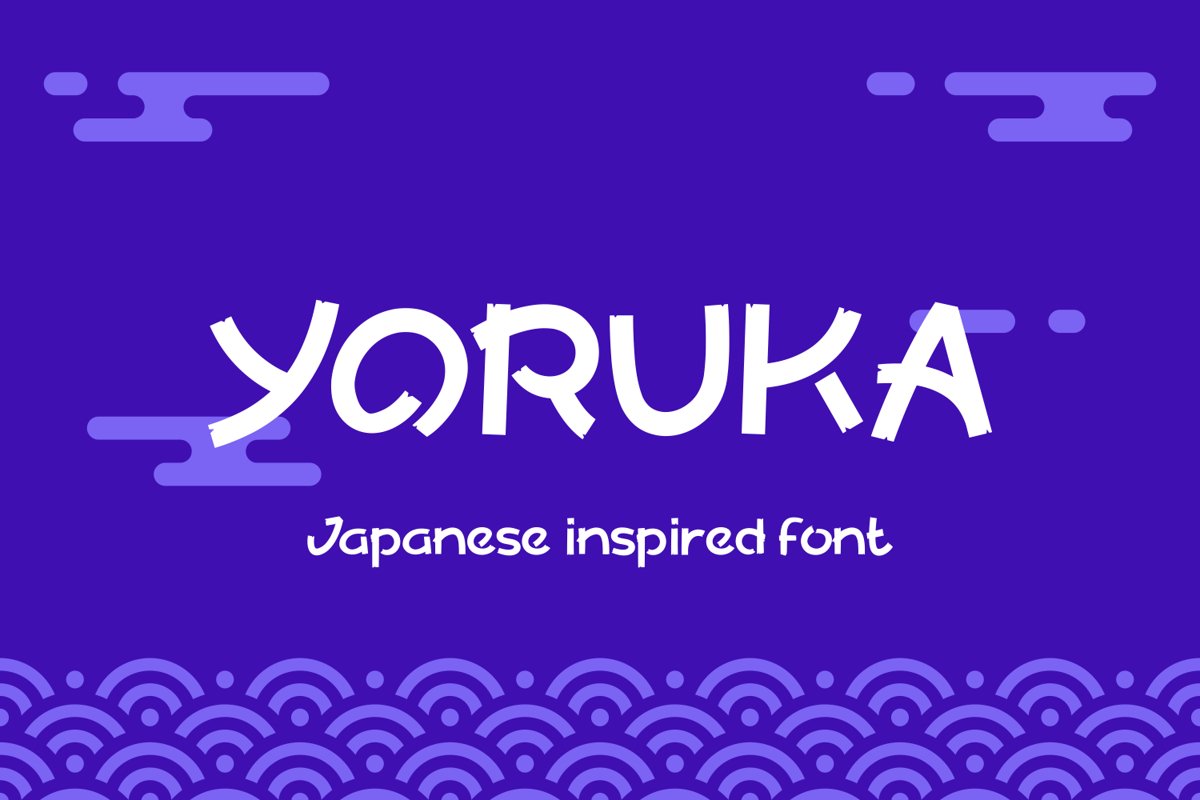
Yoruka
Yoruka - Decorative
Yoruka is a bold and fun display font with a cool feel. It will turn any design project into an eye-catcher!
- Yoruka decorative